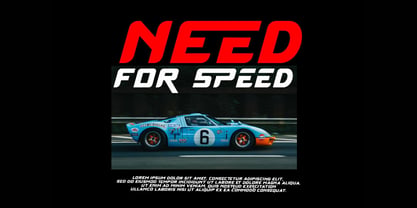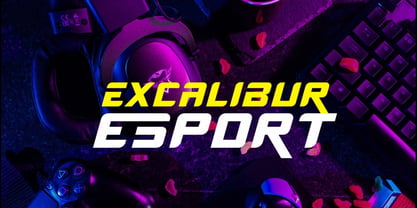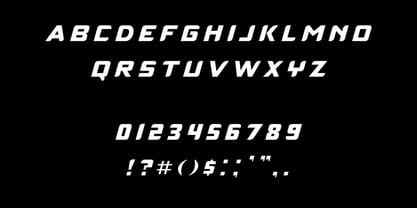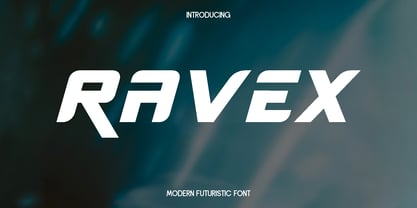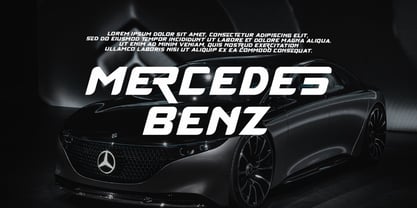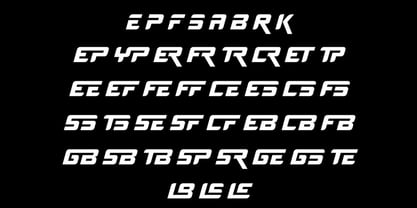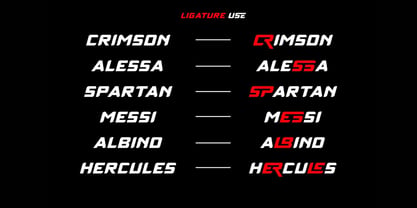
Ravex
The Ravex Font Family was designed by Olivia Love and published by Only Fonts. Ravex contains 1 styles. More about this family
Ravex is a futuristic all caps display typeface engineered for bold statements, clean geometry, and a distinctly high tech attitude. Sharp angles and streamlined contours give it a fast, engineered rhythm that reads with authority on screens and in print. Ravex was crafted for designers who want instant impact without sacrificing clarity, turning short words and abbreviations into strong logotypes and attention grabbing headlines. The voice feels modern, confident, and precise, making it a natural fit for technology, gaming, and cutting edge product branding. Where it shines: - Digital experiences: website hero text, app splash screens, dashboards, navigation labels, and callout cards that require crisp legibility with a futuristic tone. - Branding and marketing: tech and esports logos, packaging, event posters, and campaign headlines that need a compact, memorable silhouette. - Motion and environments: title sequences, HUD style overlays, booth graphics, and signage where angular rhythm enhances movement and energy. - Print and merch: business cards, stickers, apparel, and product codes that benefit from strong forms and consistent spacing. Standout features: - All caps construction with balanced proportions for powerful headings and compact wordmarks. - Numeric set designed to align with the typographic voice for dates, stats, SKUs, and leaderboard data. - Functional spacing tuned for display sizes, preserving sharp edges and clear counterforms in dense layouts. - Multilingual coverage so brand systems stay consistent across markets. - Alternates that shift tone from minimal to experimental, plus custom ligatures that forge sleek connected forms for logos and high impact titles. Use Ravex whenever a project needs a unique, engineered presence that reads fast and feels unmistakably modern. It elevates web designs, business cards, posters, product branding, and any application where a futuristic display voice must lead with clarity and confidence.